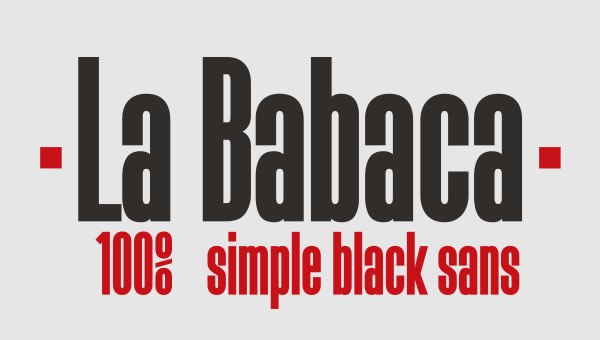
Introduction to La Babaca Font
As a designer, have you ever stared at a blank canvas, waiting for inspiration to strike? The blank page can be both a blessing and a curse. But what if I told you that the perfect font could be the key to unlocking your creative potential? For designers, finding the right font can be a game-changer. It’s what takes your design from good to great, and sets it apart from the rest.
Enter La Babaca Font, a sleek and modern sans-serif font that’s perfect for designers looking to add a touch of sophistication to their creative project. With its compressed geometric shapes and distinctive bends at the ends, La Babaca Font is a design resource that’s sure to make a statement.
Not only is La Babaca Font a high-quality font, but it’s also incredibly versatile, making it perfect for both graphic design and book and magazine layouts. Plus, with a transparent background, it’s easy to customize and use in any design project. And the best part? It’s available for free download, making it a valuable resource for designers of all levels.
Key Features of La Babaca Font
- High-quality font design ideal for creative projects, offering a unique and stylish look.
- Comes with a transparent background, allowing for easy customization and versatility.
- Designed to be highly scalable, with a resolution of up to 300 DPI, making it suitable for use in a range of applications, from print to digital media.
- Includes a wide range of characters, including uppercase and lowercase letters, numbers, and punctuation marks, making it a comprehensive design resource.
- Perfect for use in creative projects, such as logos, graphics, and typography-based designs, thanks to its unique and eye-catching style.
Honest Review: La Babaca Font
I recently had the chance to work with La Babaca Font in a creative project, and I must say, I was pleasantly surprised. As a designer, I’m always on the lookout for high-quality design resources that can elevate my work, and La Babaca Font definitely fits the bill.
One of the things that works well with La Babaca Font is its unique and quirky aesthetic. The font is perfect for projects that require a touch of whimsy and playfulness, and its transparent background makes it easy to use on a variety of design elements. I also appreciated the fact that La Babaca Font is available for free download, making it a great option for designers on a budget.
Here are some of the key features that I liked about La Babaca Font:
- Unique and quirky aesthetic
That being said, there are a few limitations to La Babaca Font that I want to note:
- Not suitable for formal or professional projects
- May not be as versatile as other fonts
Overall, I’m really impressed with La Babaca Font and would definitely recommend it to designers who are looking for a fun and creative font to use in their projects. With its unique aesthetic and high-quality design, it’s a great addition to any design resource collection.
La Babaca Font is ideal for various creative projects such as logos, brochures, business cards, and social media graphics. Use the font to add a touch of elegance and sophistication to your designs.